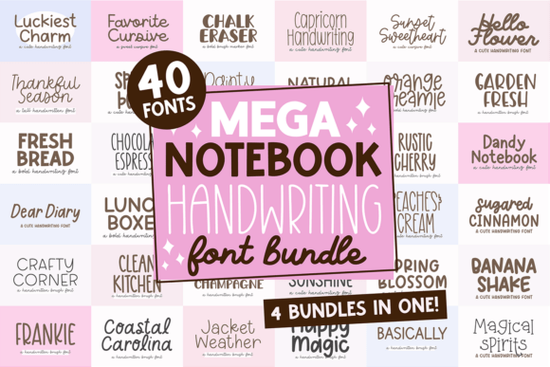
If you create digital planners, journal layouts, or printable art, you know the right handwriting font can make or break your project. The Mega Notebook Handwriting Bundle Font delivers exactly that a collection of 40 hand-lettered fonts that feel personal, warm, and genuinely written by hand. Whether you are designing for GoodNotes, building sticker sets, or producing social media templates, this bundle gives you a versatile toolkit that keeps your work from looking like everyone else’s.
What makes this bundle different from a single handwriting font?
A single handwriting font is like having one favorite pen. It works, but you quickly run into limits you need a different weight for headers, a playful style for accents, and a clean script for body text. This bundle gives you 40 fonts in one package, so you can mix and match without hunting down separate files or paying for multiple individual fonts.
You get curves and flourishes for headers, neat script styles for legible body text, and casual hand-lettered options that work for titles and decorative elements. That variety alone saves you hours of browsing time and keeps your design work consistent across a whole project.
What kind of projects actually benefit from 40 handwriting fonts?
If you are a digital planner creator, you likely need different fonts for different sections one style for monthly headers, another for daily notes, and a playful one for stickers or decorative callouts. The Mega Notebook Handwriting Bundle covers all of that without forcing you to buy multiple separate bundles.
For print-on-demand sellers, having 40 fonts means you can create multiple product listings that all feel distinct. T-shirt designs, mugs, wall art, and notebooks each benefit from a slightly different handwriting style, and this bundle gives you enough variety to keep your shop fresh.
Small business owners who create their own marketing materials social media graphics, flyers, email headers will appreciate how quickly a good handwriting font can make a simple message feel personal and trustworthy. You do not need advanced design skills when the font itself carries the charm.
Do these fonts look feminine or neutral?
The bundle leans feminine and whimsical think loops, flourishes, and soft curves. If your brand or personal style leans romantic, playful, or elegant, you will find plenty of options that fit. Many of the fonts in this collection have that handwritten chic vibe that works well for goal-setting layouts, habit trackers, and vision boards.
That said, not every font in the bundle is heavily decorative. Several styles are clean and readable, making them suitable for body text or more minimal layouts. You get a good range from fancy script to straightforward cursive, so you are not stuck with one type of look.
How do you choose the right handwriting font for your project?
Start with the mood you want to create:
- For a romantic or elegant feel, pick fonts with flowing connectors and thin upstrokes. They work well for wedding printables, love-themed stickers, or feminine branding.
- For a playful, casual look, choose fonts that feel uneven or bouncy letters that do not sit perfectly in a straight line. These are great for habit trackers, kids' content, or fun social media posts.
- For readable body text, look for clean handwriting styles with consistent letter shapes. These can carry longer passages without losing legibility.
- For headlines and emphasis, pick the boldest scripts or ones with extra flourishes. They draw attention without needing extra graphic elements.
If you are still unsure, try pairing one of the script fonts from this bundle with a simpler sans serif you already own. The contrast creates a clean hierarchy that looks professional without feeling overdone.
Can you mix multiple handwriting fonts in one design?
Yes, and the bundle makes it easy because the fonts share a similar handmade quality. They feel like they belong to the same family even though they look different. For example, you could use Bee Kind Duo Font for your main title and Brown Carolina Duo Font for subtitles, then finish with a clean script for the body text. The result feels cohesive without being boring.
For print-on-demand sellers, this is especially useful. You can create a whole product line t-shirts, journals, prints, mugs and each product uses a different combo from the same bundle, giving your shop a unified aesthetic while keeping every listing visually distinct.
If you need a clean, feminine script for digital planning and creative projects, the Mega Notebook Handwriting Bundle Font gives you 40 options that feel genuine and handmade. No hunting, no guessing, just pick one and start creating.